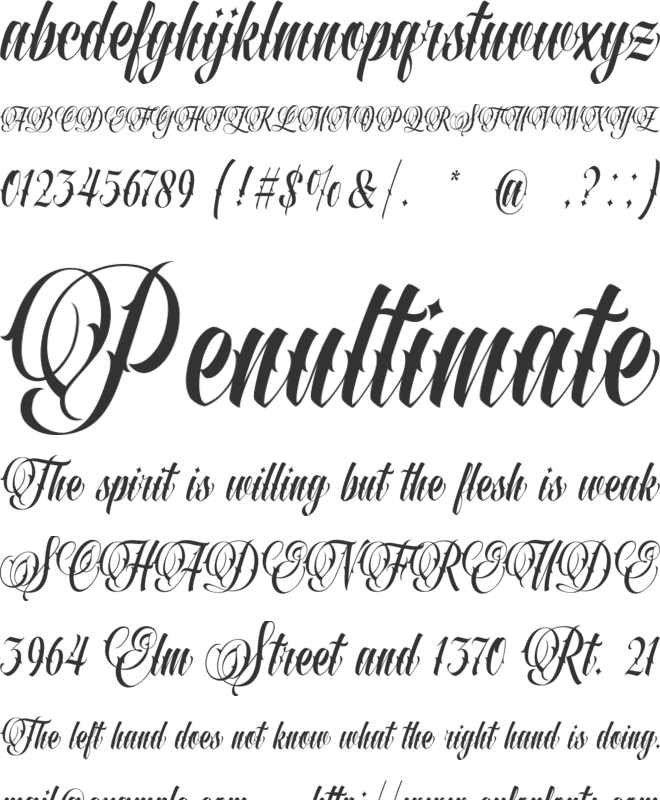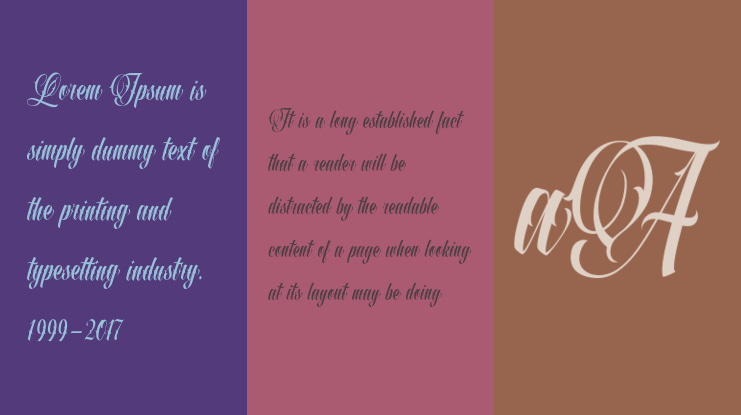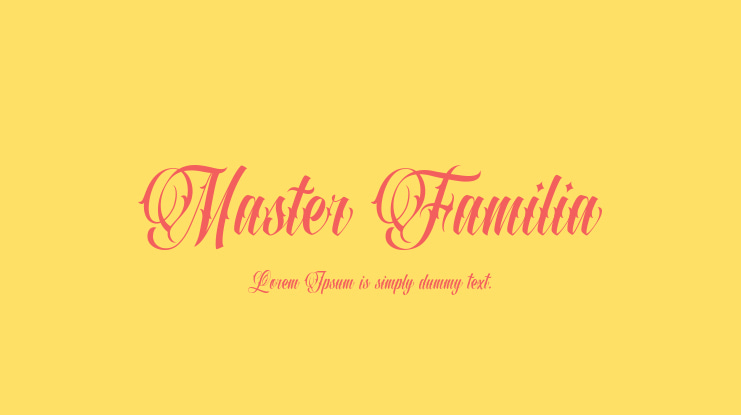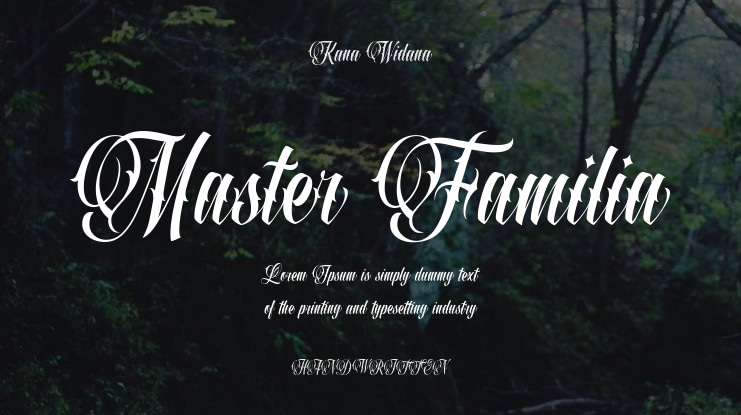
Master Familia Font
Kana Widana
Presenting the Master Familia Script Font - an ideal choice for creating designs inspired by gangster themes with a Mexican flair. This font boasts intricate details, making it perfect for tattoo designs or projects that require a bold and edgy aesthetic.